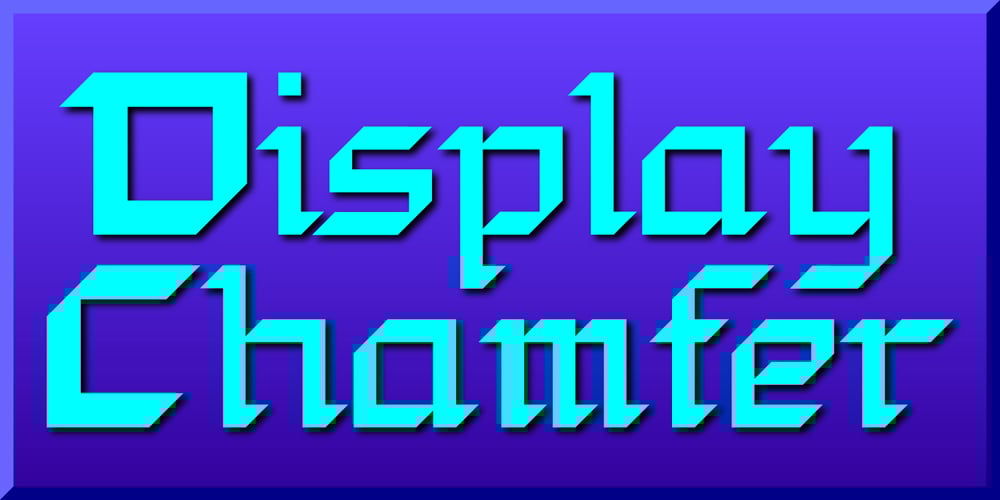
Display Chamfer
Display Chamfer font
Display Chamfer Font Family was designed by Gerald Gallo and published by Gerald Gallo. Display Chamfer contains 1 styles and family package options. Display Chamfer is a display font not intended for text use. It was designed specifically for display, headline, logotype, branding, and similar applications. It has caps, lowercase and numbers.